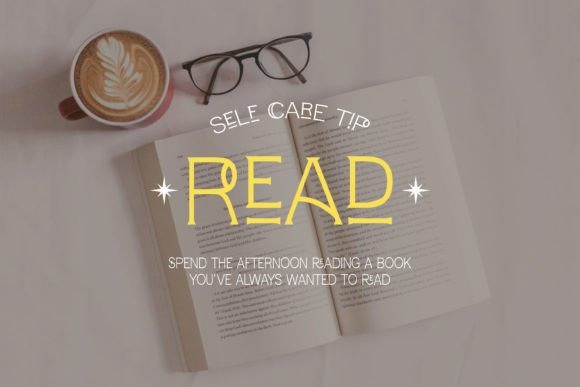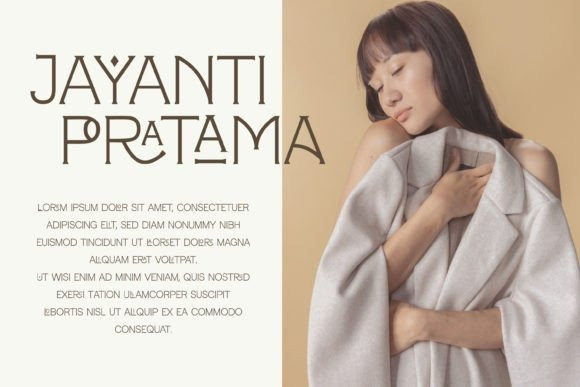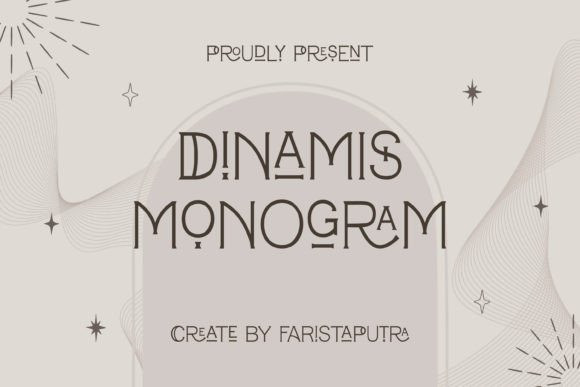
Dinamis Monogram Font
Dinamis Monogram Font is a modern serif as known for its geometric style. It’s feminine with a magical touch to make it more attractive. It suits beauty, fashion, logos, and more.
Dinamis Monogram is perfect for branding projects, logos, wedding designs, social media posts, advertisements, product packaging, product designs, label, photography, watermark, invitation, stationery, and any projects that need handwriting taste. This font is PUA encoded, which means you can access all of the glyphs and swashes with ease!